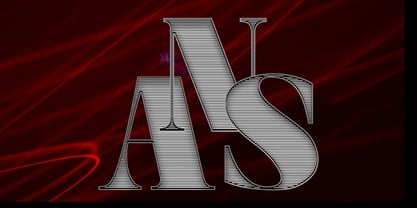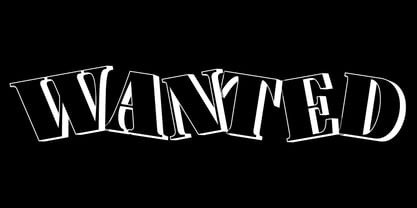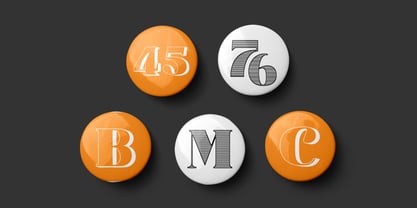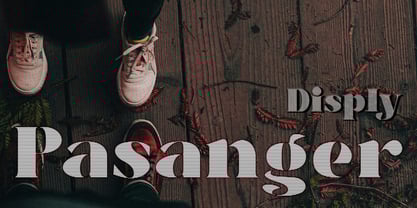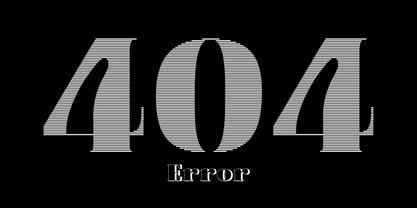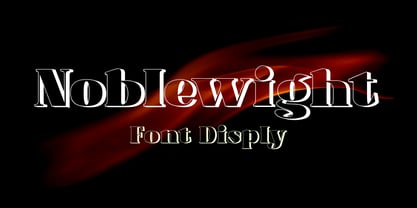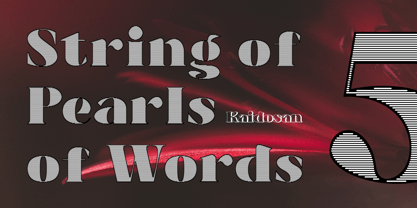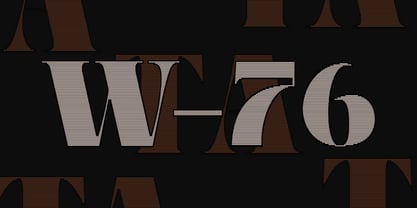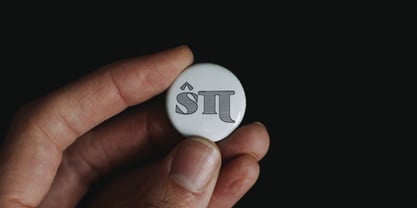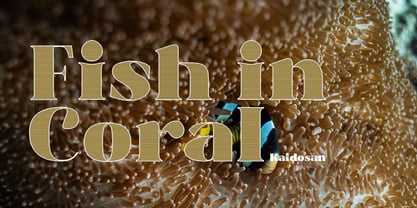
Nobleweight
by Kaidosan
The Nobleweight Font Family was designed by Muhammad Ansari and published by Kaidosan. Nobleweight contains 2 styles and family package options.
Noblewight is a distinguished display serif typeface crafted to balance timeless elegance with modern sophistication. With its bold proportions, refined serifs, and striking visual presence, it conveys authority and style in equal measure.
Perfectly suited for editorial design, luxury branding, premium packaging, and statement visuals, Noblewight delivers a confident and memorable impression, ensuring every project resonates with strength and refinement.